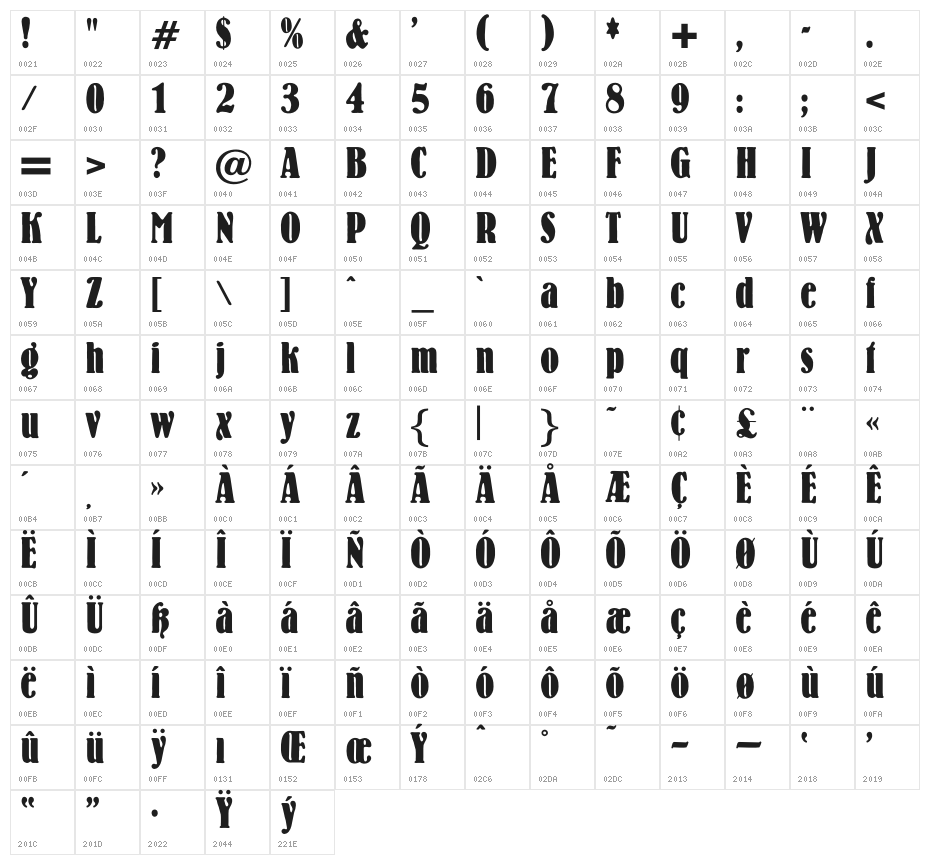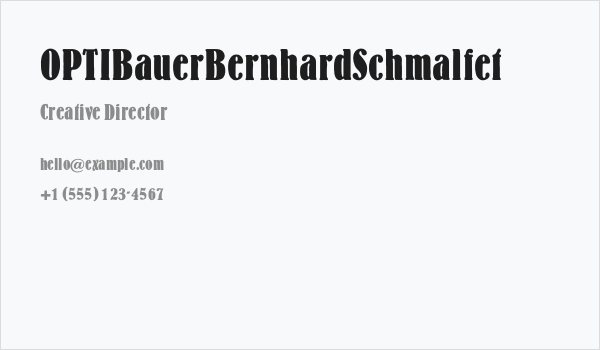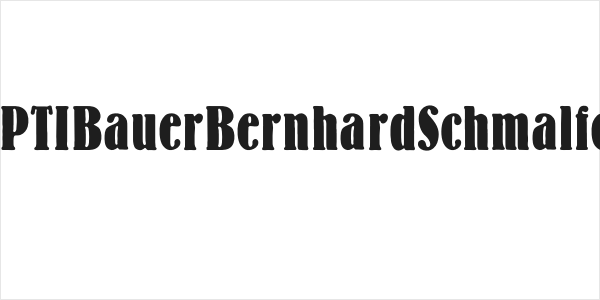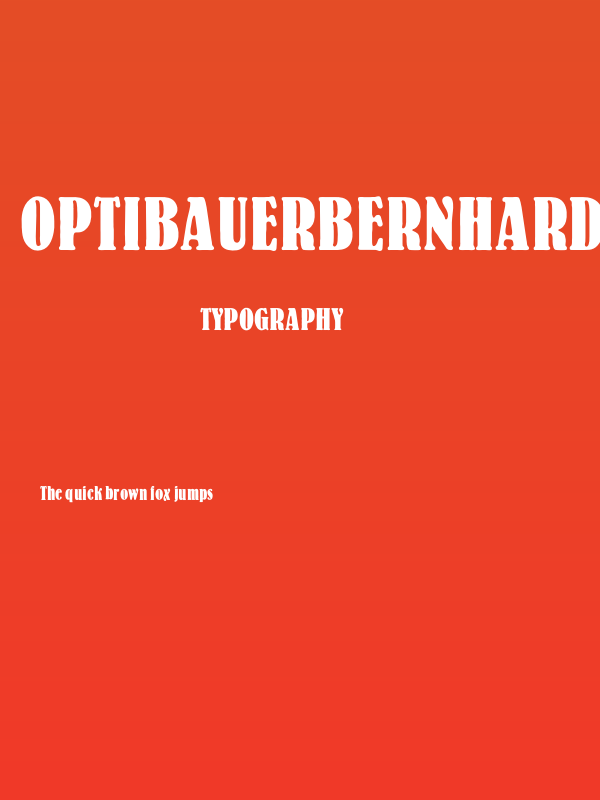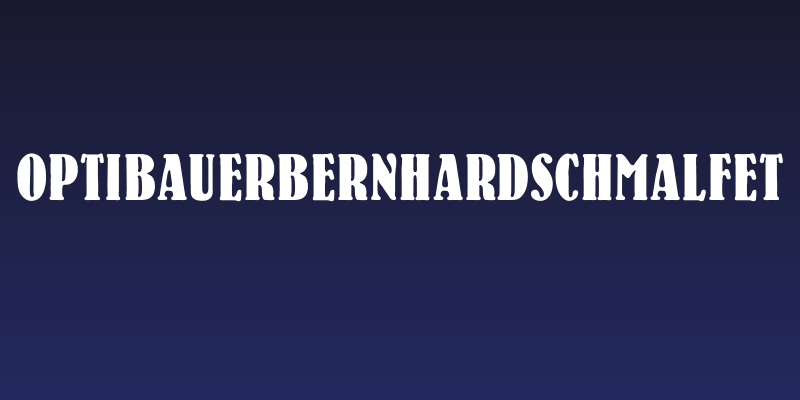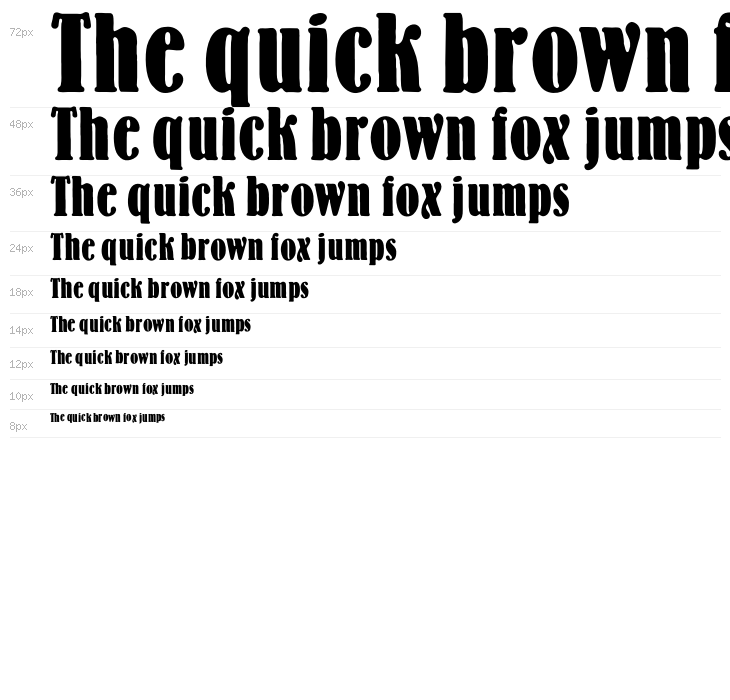
OPTIBauerBernhardSchmalfet Font
OPTIBauerBernhardSchmalfet Description
This font features a bold and robust design with thick, heavy strokes that give it a strong presence. The characters have a slightly condensed appearance, enhancing their impact and making them suitable for attention-grabbing headlines. The serifs are prominent and add a touch of classic elegance, while the overall style maintains a modern flair. The uppercase and lowercase letters are well-balanced, and the numerals are clear and legible. Special characters are included, maintaining the font's bold and distinctive style. The font's high contrast between thick and thin strokes adds to its dramatic effect, making it ideal for projects that require a strong visual statement.
| Proposed Projects | Ideal for posters, branding, headlines, and any design requiring a bold statement. |